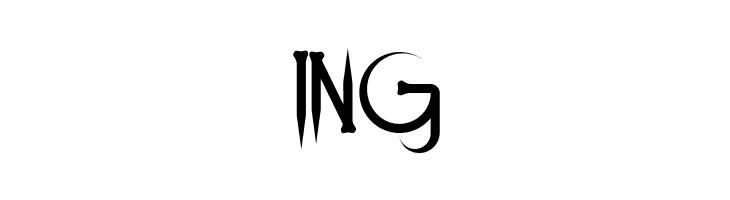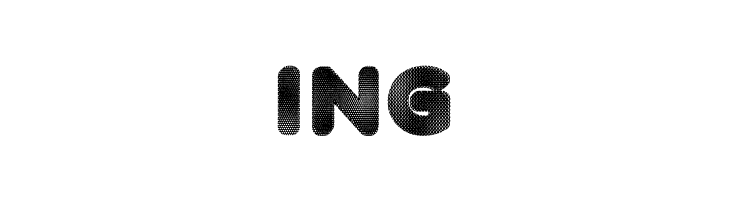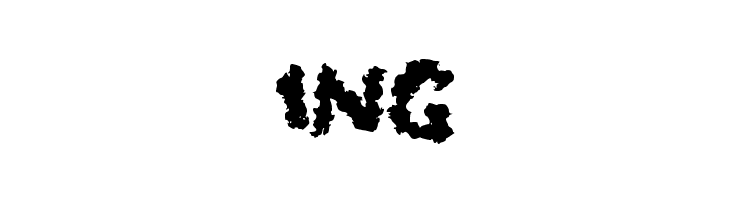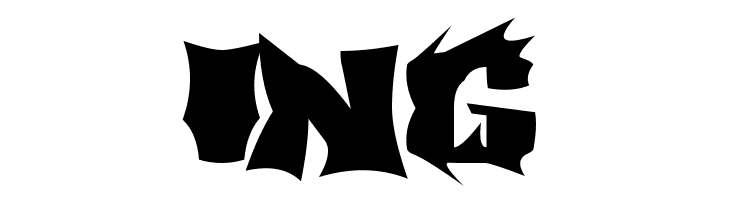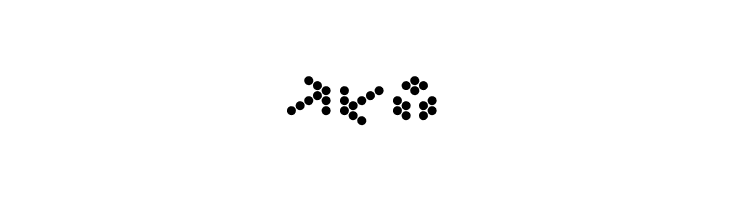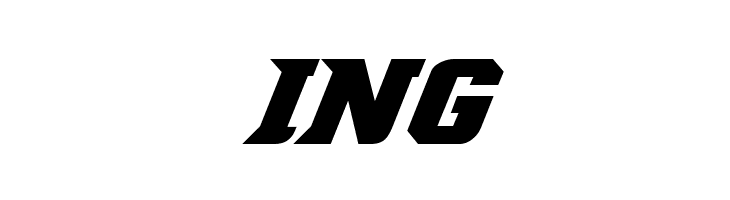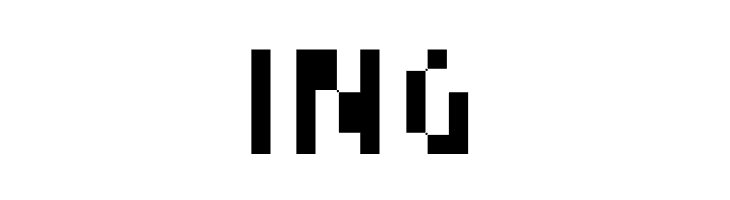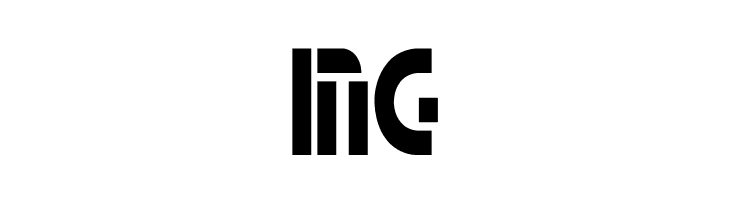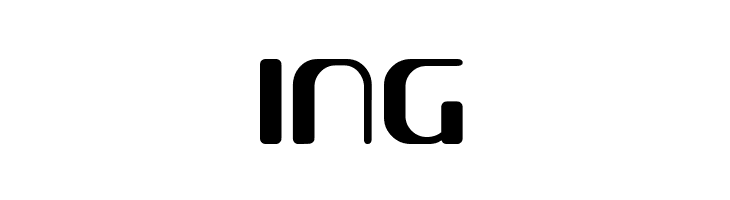
A bold, slanted font with a dynamic and energetic style.
A bold, handwritten-style font with dynamic, flowing strokes.
A distressed, grunge-style font with rough edges and a textured appearance.
A decorative font with characters formed by interconnected circles, offering a playful and modern look.
A bold, angular font with sharp edges and a fierce, dynamic style.
An edgy, artistic font with sharp angles and irregular strokes.
A bold, geometric font with sharp angles and dynamic cutouts.
A bold, italicized font with high contrast and a modern, dynamic style.
A pixelated, retro-style font with a blocky, digital appearance.
A bold, futuristic font with a metallic, geometric design.
A bold, gothic-inspired font with sharp edges and smooth curves.
A cursive, handwritten-style font with elegant, flowing strokes.
A bold, rounded font with a halftone texture, offering a modern and cohesive look.
A bold, geometric font with a futuristic and modern design.
A bold, futuristic font with geometric shapes and a modern aesthetic.
A bold, geometric font with a futuristic and edgy design.
A modern, rounded font with a futuristic and sleek design.
A flowing, elegant script font with a natural handwriting style.
A playful, modern handwritten font with a casual and approachable style.
A bold, textured font with an organic, rugged appearance.
A bold, hand-painted style font with an expressive and artistic appearance.
A casual, handwritten font with medium contrast and a dynamic, lively style.